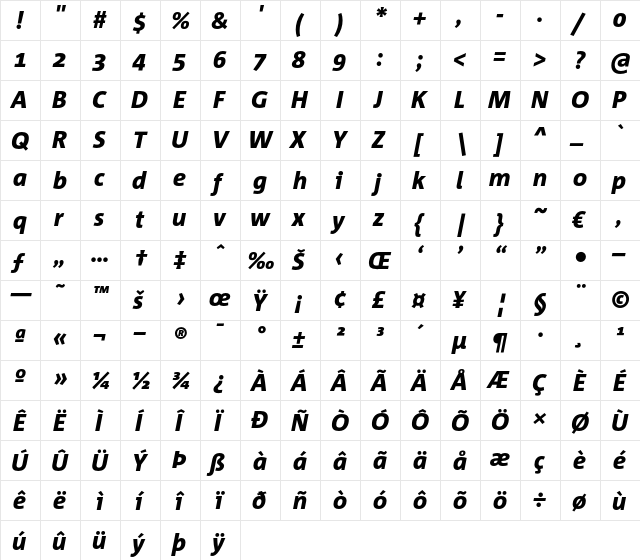
Corpid Heavy Italic
Design Context for Corpid Typeface
Corpid offers clean, dependable letterforms without strong stylistic allegiance, making it a practical choice for designers who need flexibility. The dynamic lean of this cut emphasises speed and emphasis in any layout.
Pro Tip: Use Corpid for emphasis, pull quotes, and subheadings where its slanted energy can add rhythm to the layout.